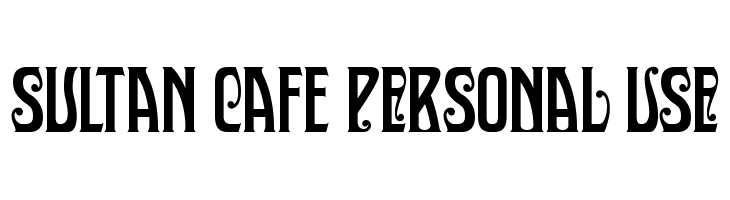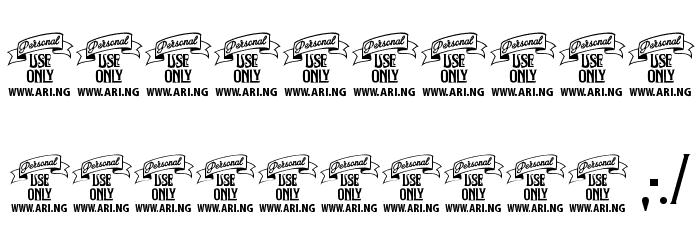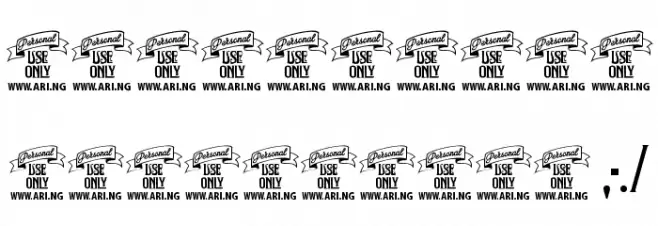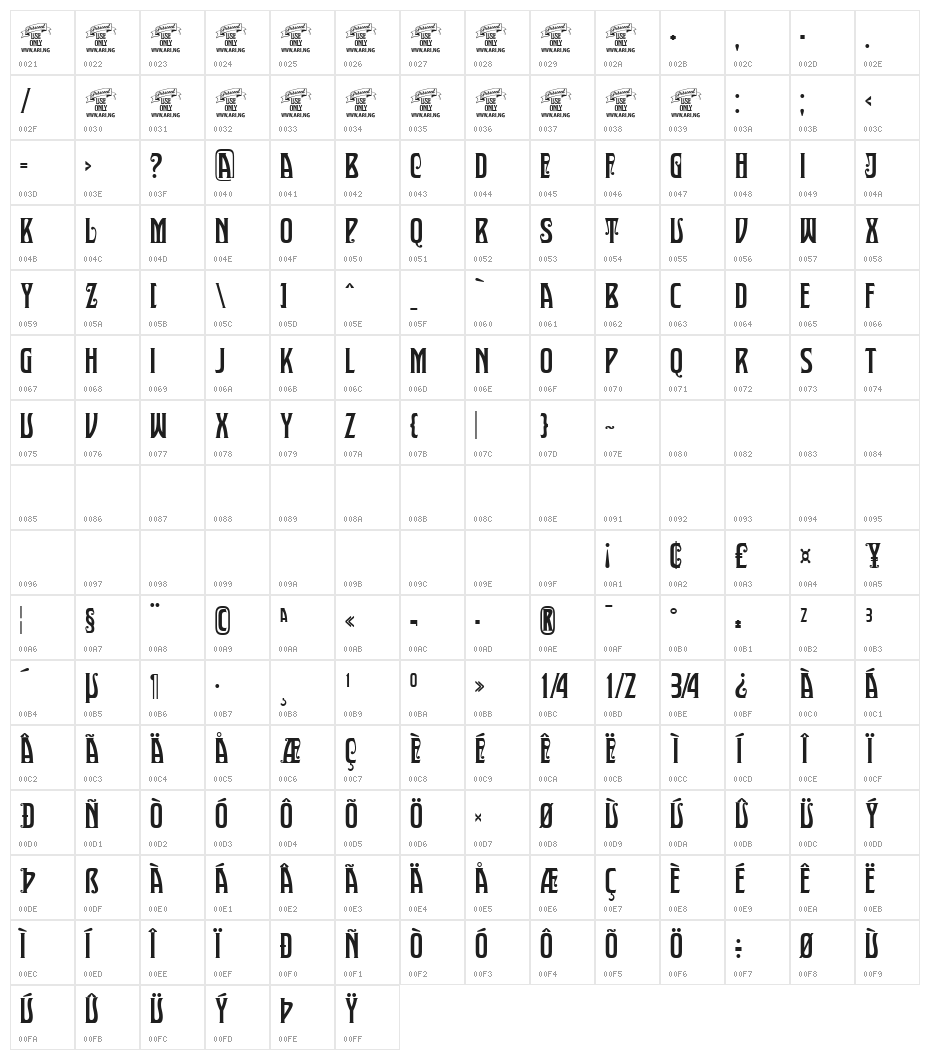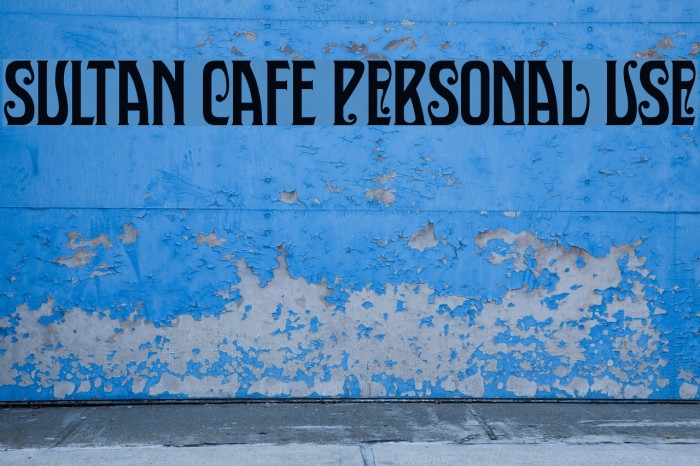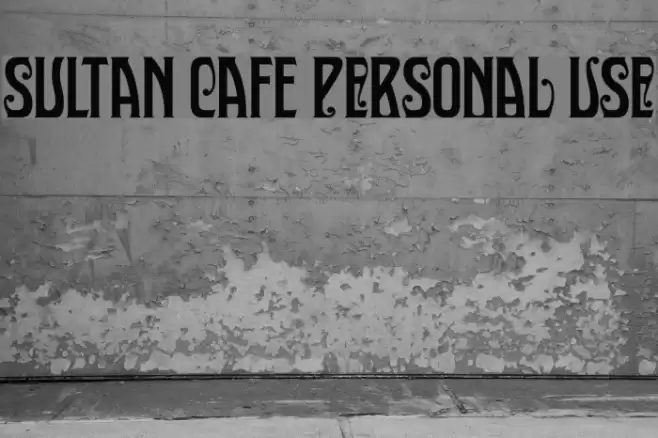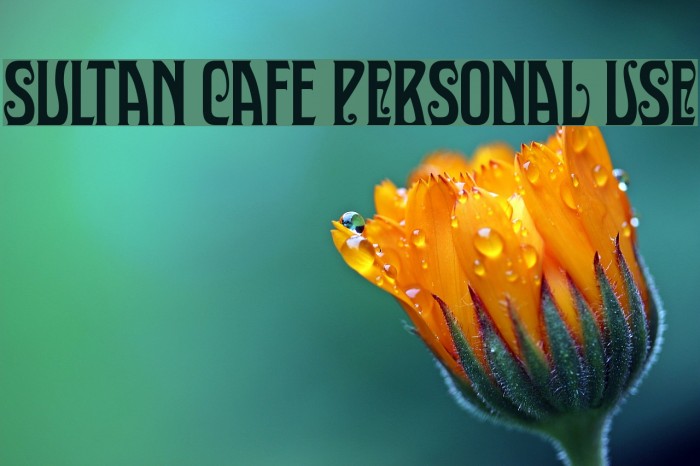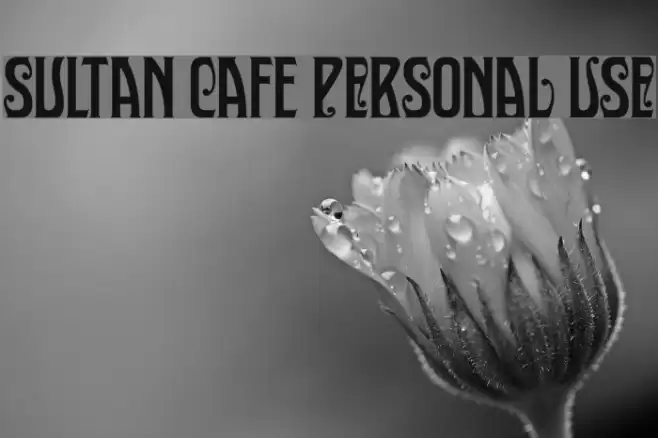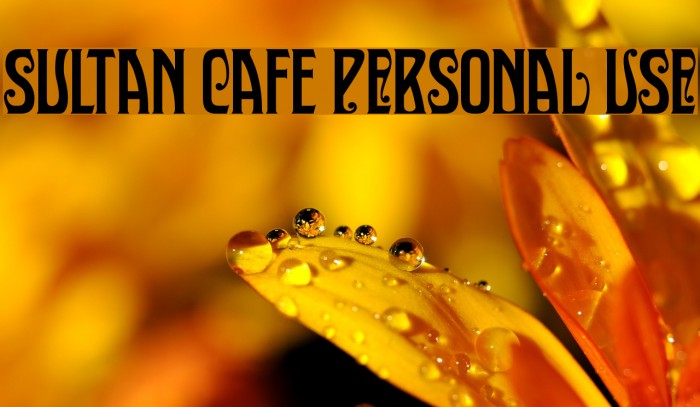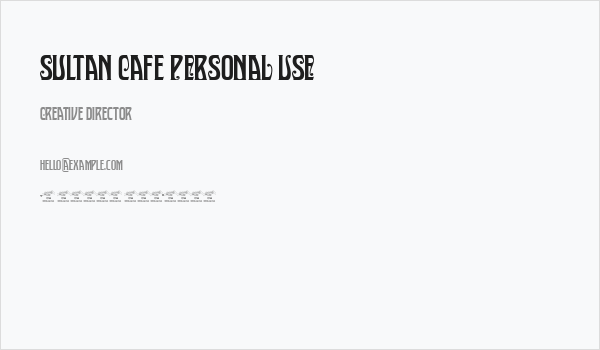
Sultan Cafe PERSONAL USE Font
Sultan Cafe PERSONAL USE Description
This font features a unique and decorative style with a strong emphasis on bold, angular lines and intricate detailing. The uppercase letters are characterized by their tall, narrow forms with distinctive curls and flourishes that add an ornamental touch. The overall design is reminiscent of vintage or retro aesthetics, making it stand out with its artistic flair. The lowercase letters maintain a consistent style, complementing the uppercase with similar decorative elements. This font is ideal for projects that require a touch of elegance and creativity, such as branding, posters, or invitations.
| Proposed Projects | Ideal for branding, posters, invitations, and any project requiring a vintage or artistic touch. |